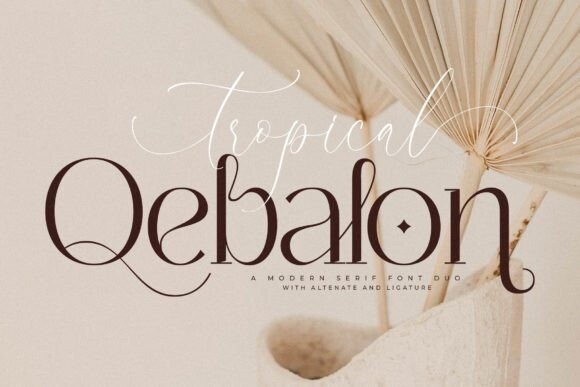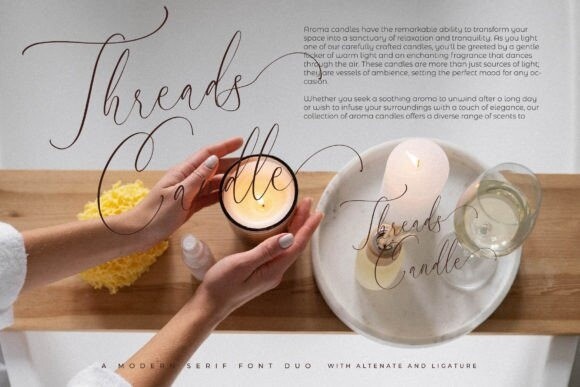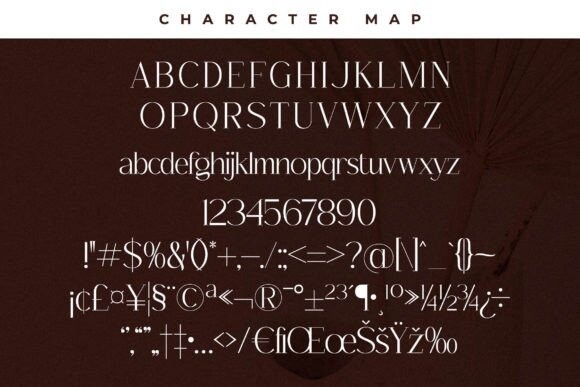
Tropical Qebalon Font
Tropical Qebalon Font A serif and script typeface that has its own unique style & modern look. This typeface is perfect for an elegant & luxurious logo, book or movie title design, fashion brand, magazine, clothes, lettering, quotes, and so much more.